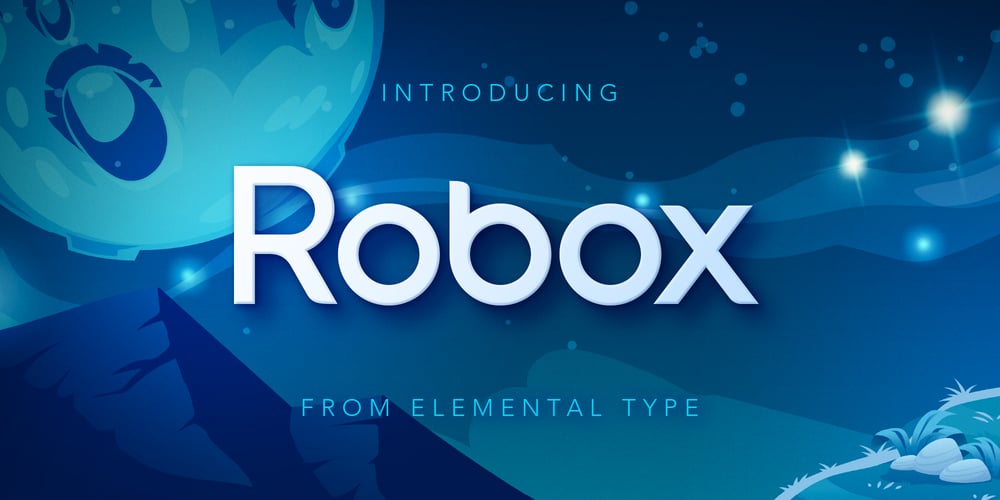
Robox Std Font Family was designed by Brandon Adams and published by Elemental Type. Robox Std contains 1 styles and family package options. A unique sans serif typeface created from geometric shapes like perfect circles and straight stems with half-rounded endcaps. Simple, yet complex, this typeface is akin to other classics, like Avant Garde and Bauhaus, in that it can be used in modern, friendly or futurist designs. Whether your intent is serious or playful, the versatility of Robox has you covered.